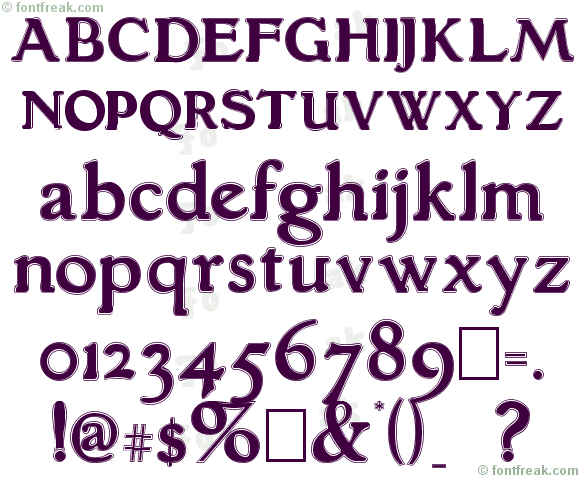
About Grantham
Grantham, designed by Paul Lloyd in 1996, is a distinguished serif font that beautifully combines elegance and readability. This freeware typeface features a classic Roman style that showcases a balanced stroke weight, moderate contrast, and a refined appearance, making it suitable for a variety of design applications. Its well-proportioned letters and generous spacing contribute to its legibility, ensuring that it stands out in both print and digital formats.
The Grantham font family includes several variations such as Grantham Shadow, Grantham Light Condensed, Grantham Bold, Grantham Light, Grantham Condensed, and Grantham Outline. Each version offers unique characteristics while maintaining the foundational elegance of the original design. The decorative elements are subtle yet effective, providing a sophisticated touch that enhances any project.
This versatile font is ideal for a range of use cases. It can elevate wedding invitations with its graceful curves, create eye-catching movie posters that demand attention, enhance restaurant menus with a touch of class, and add a professional flair to business branding. It is particularly appealing to graphic designers, small business owners, and content creators who seek a typeface that marries style with functionality.
What sets the Grantham font apart is its ability to convey a sense of tradition while remaining modern and approachable. The combination of its classic serifs and contemporary nuances allows it to adapt seamlessly to various contexts, making it a valuable addition to any designer’s toolkit. For those interested in elevating their projects with a touch of elegance, the Grantham font free download is an opportunity not to be missed. Its unique style and versatility make it a standout choice for anyone looking to make a lasting impression.